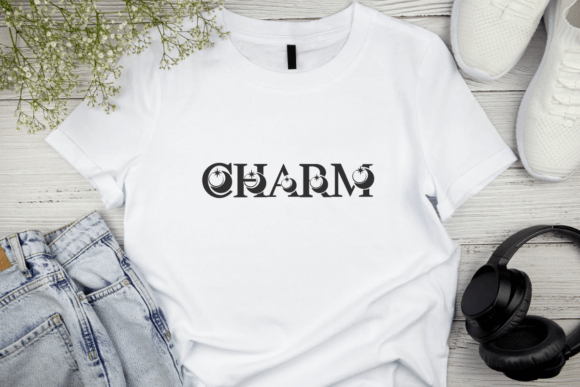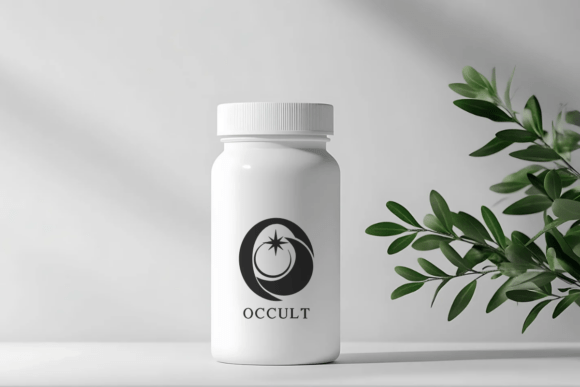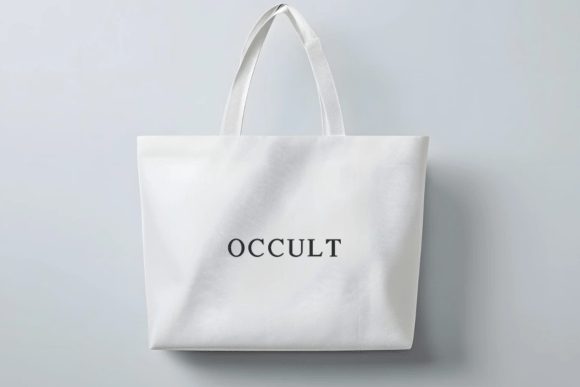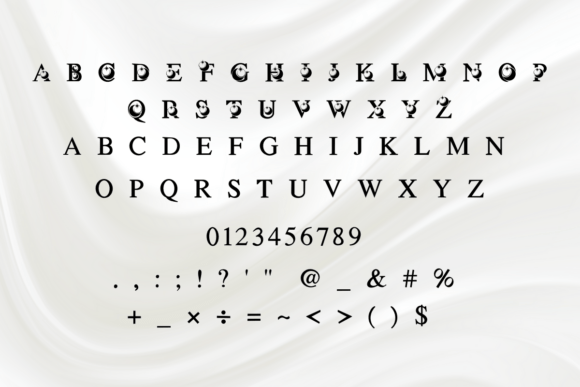
Introduction to Occult Charm Magic Font
Dive into the mystic allure of Occult Charm Magic, a decorative font that effortlessly infuses a sprinkle of enchantment in all your creative endeavours.
Ideal for jotting down your musings, chronicling your life in a diary, or crafting heartfelt greeting cards, this mystical typeface transcends the norm Its versatility makes it a perfect pick for your design projects, including, but not limited to, banners, captivating content, appealing mugs, personalised cards, trendy shirts, elegant stationery, and engaging social media posts.
Key Features of Occult Charm Magic Font